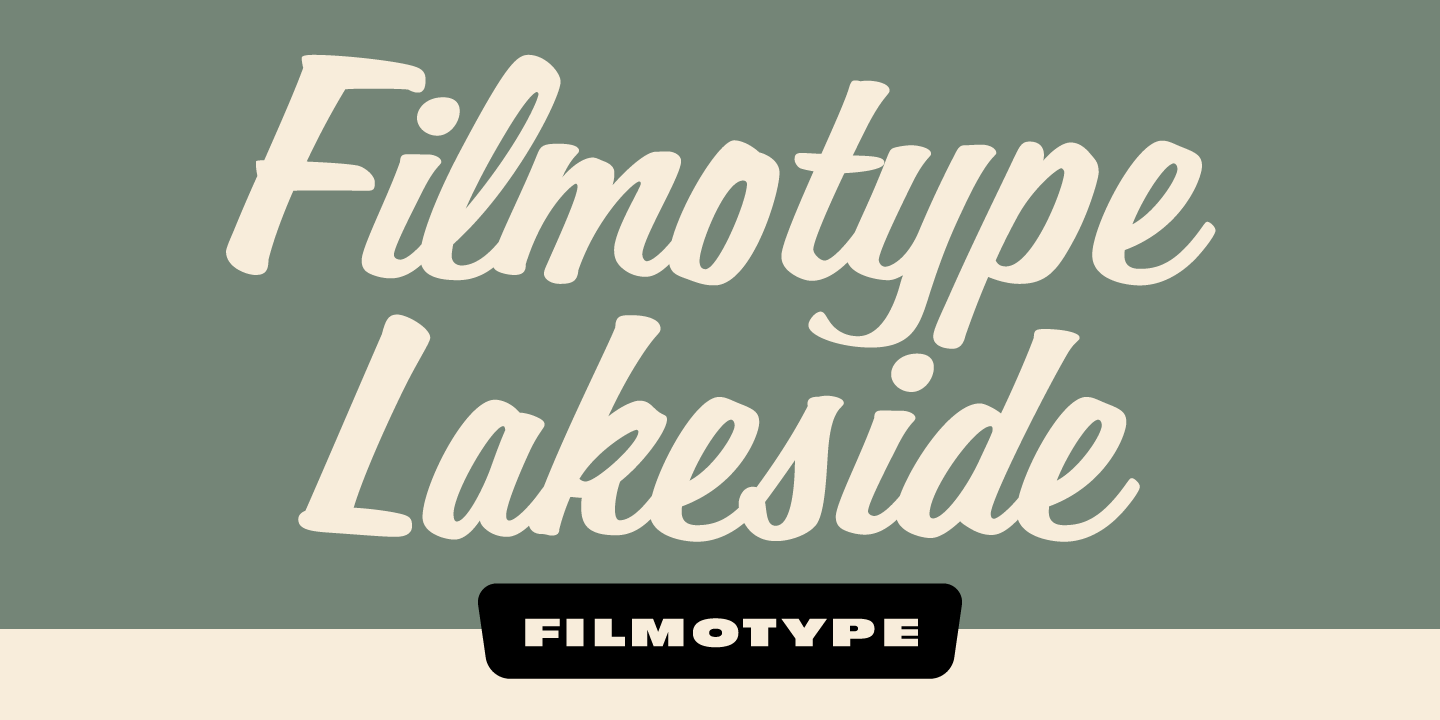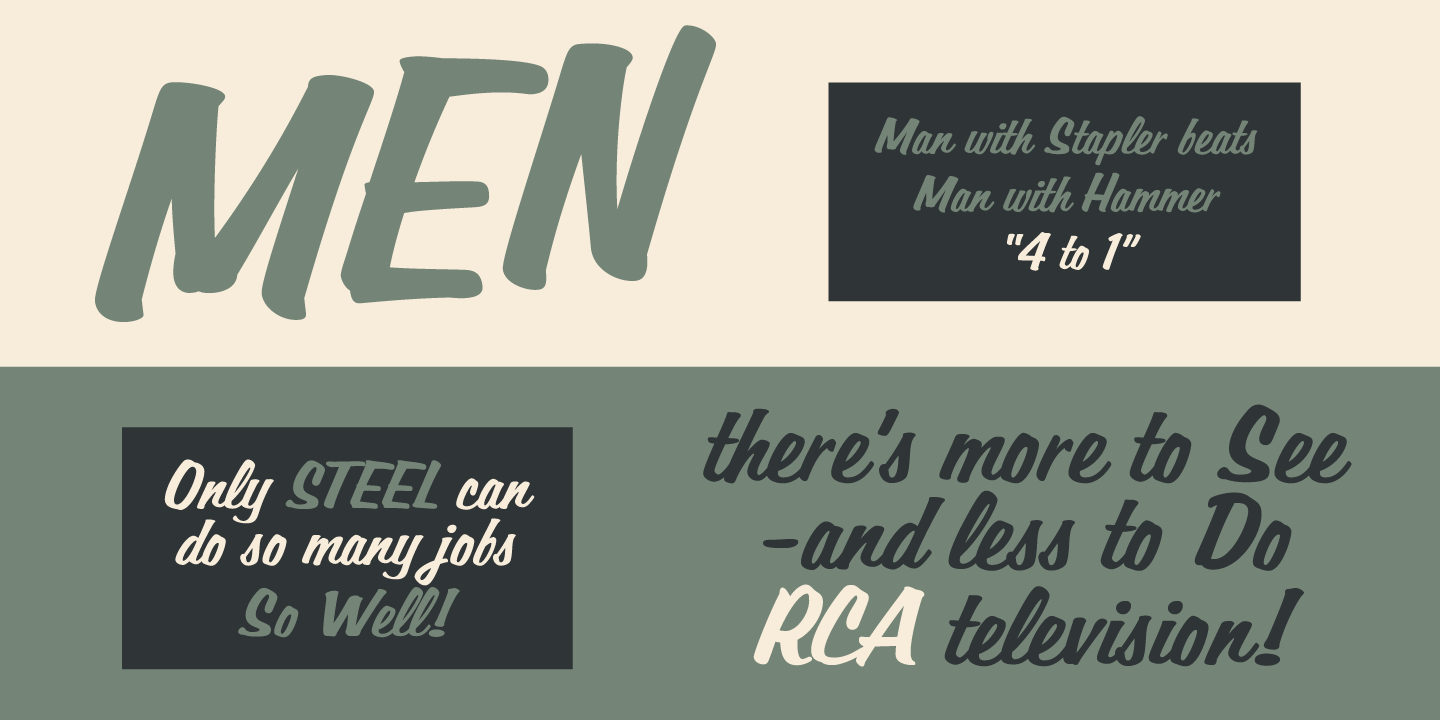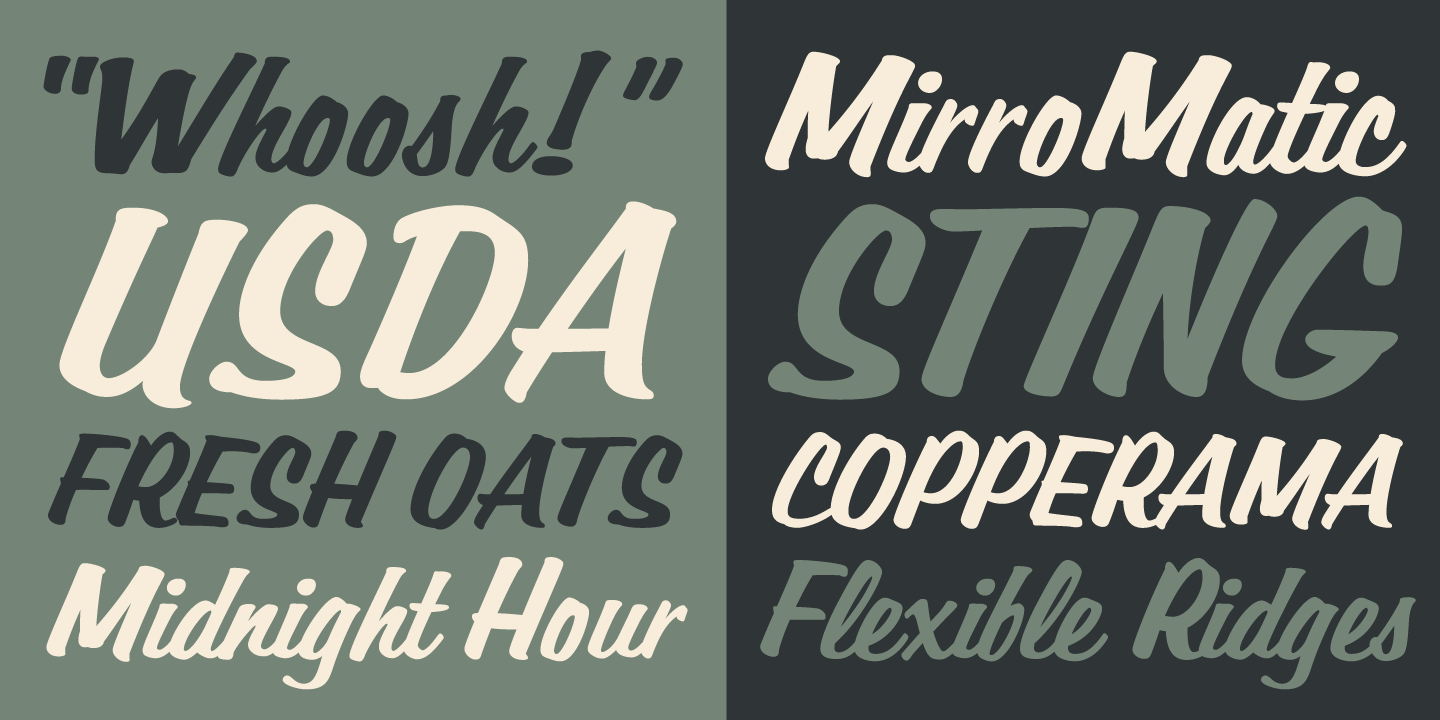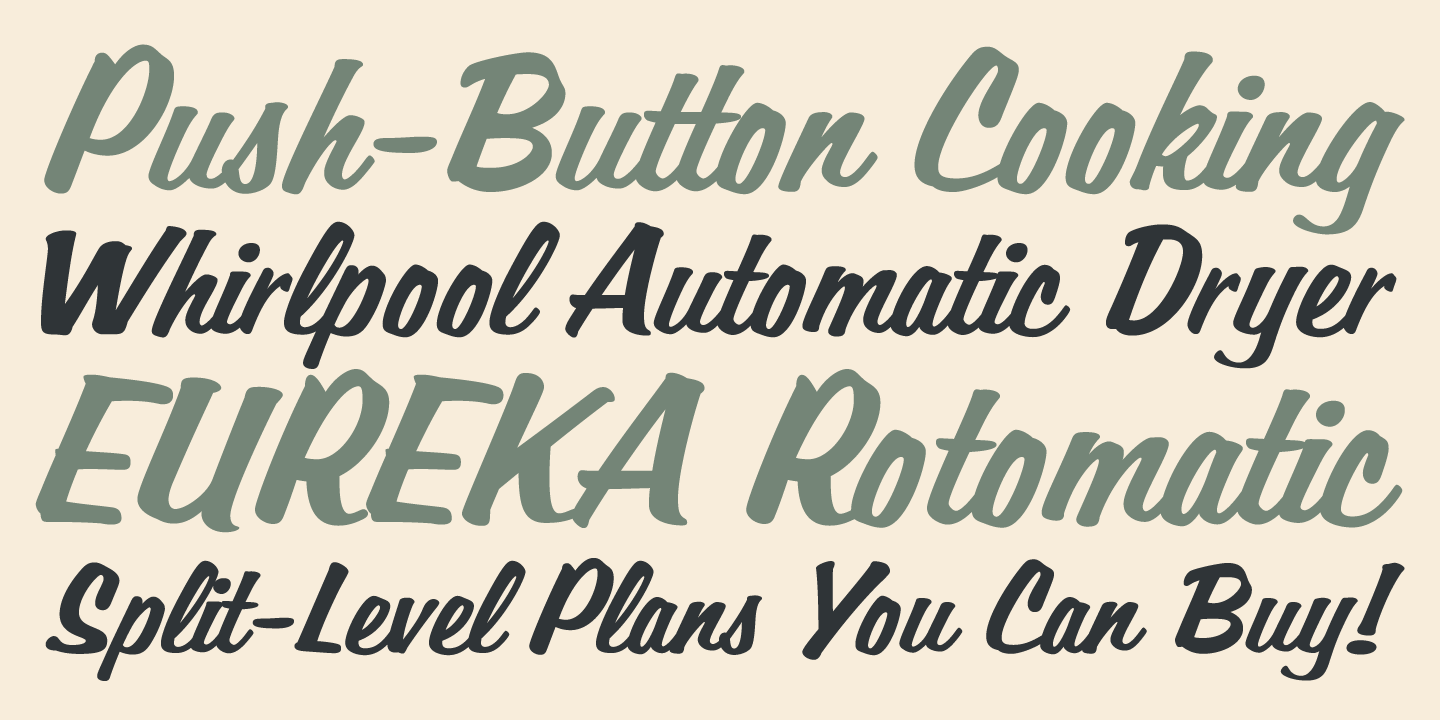
Filmotype Lakeside
Filmotype Lakeside is a retro script with a handwritten feel that balances casual warmth with a more polished, formal rhythm. Its vintage personality points to mid-century lettering styles, giving layouts a nostalgic, personable tone without losing readability.
Tagged for 1940s, 1950s, and 1960s-inspired design, this single-style family is a strong fit for branding, poster work, packaging, invitations, and other display uses that benefit from expressive script lettering. It works especially well when you want a design to feel friendly, classic, and distinctly retro.
Offered by Filmotype, Filmotype Lakeside brings that period-authentic script character into a focused one-font package, making it an appealing choice for designers who want vintage flavor with a clean, straightforward selection.